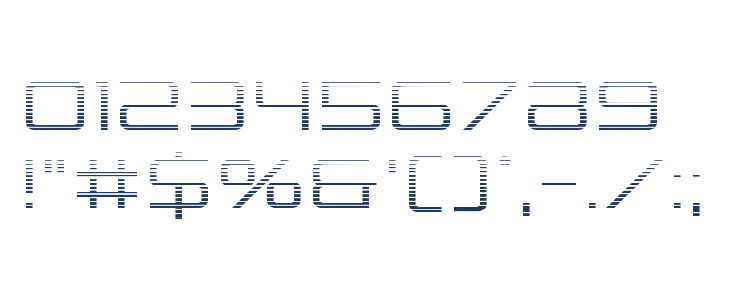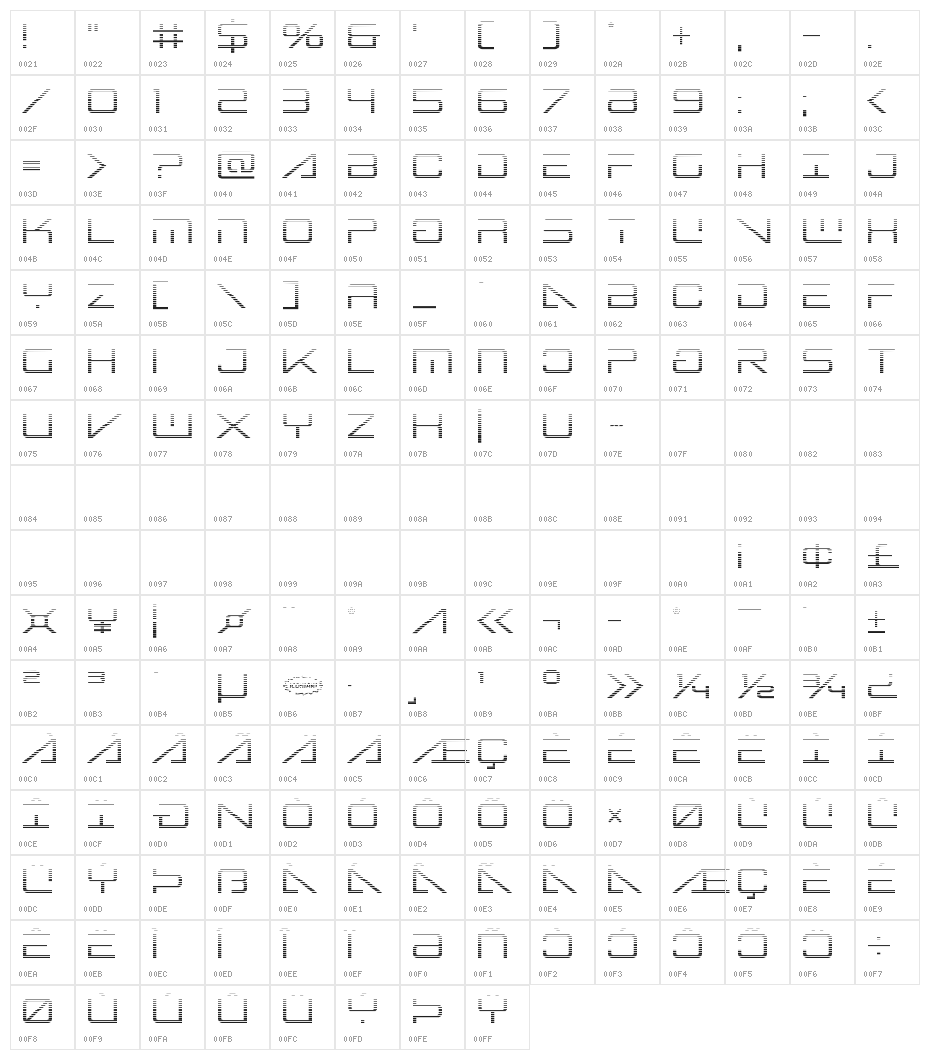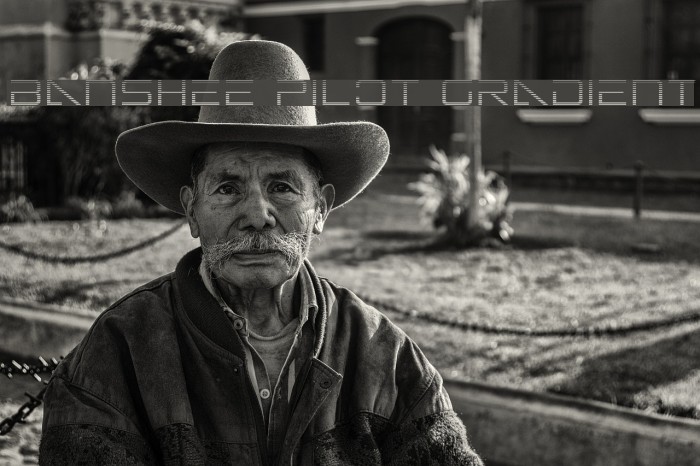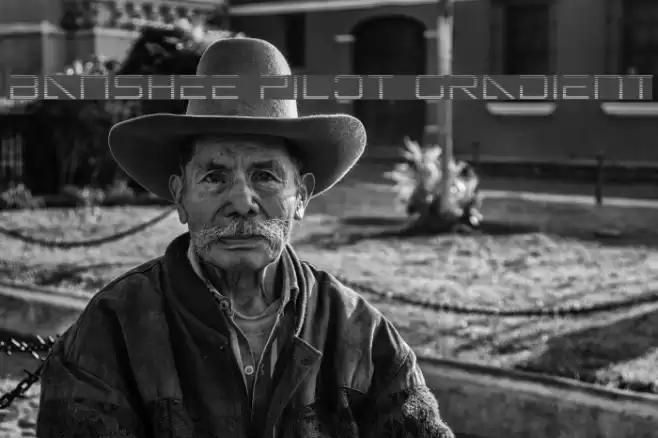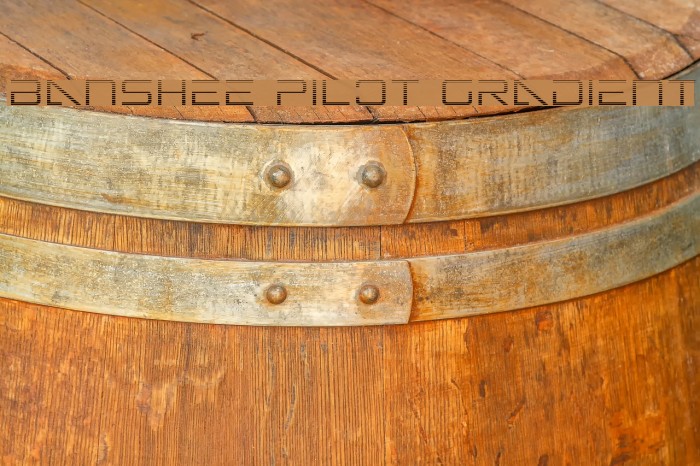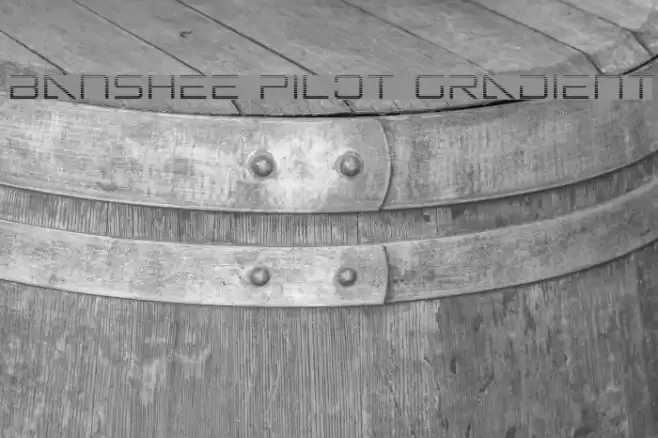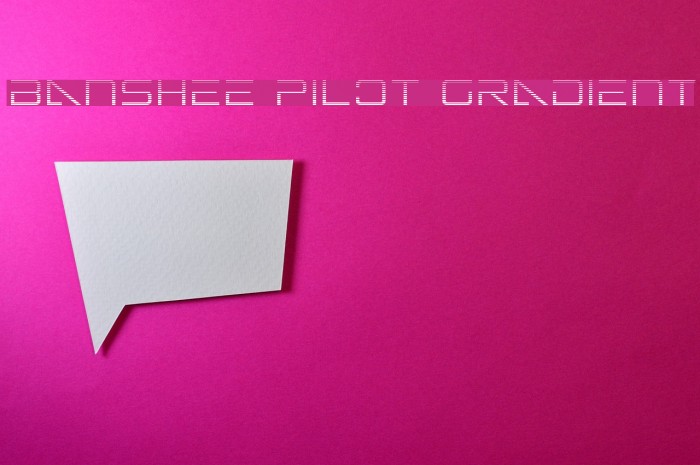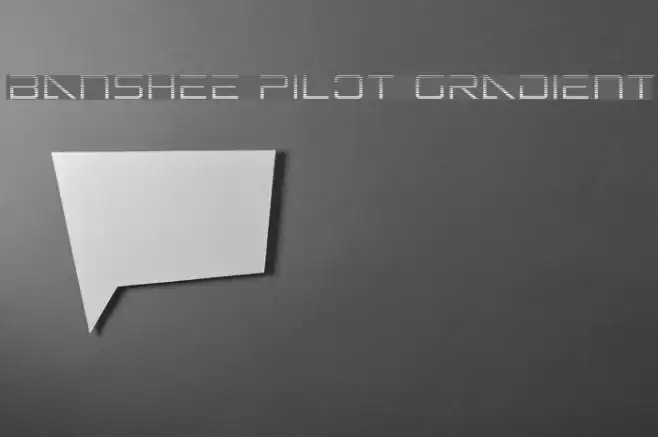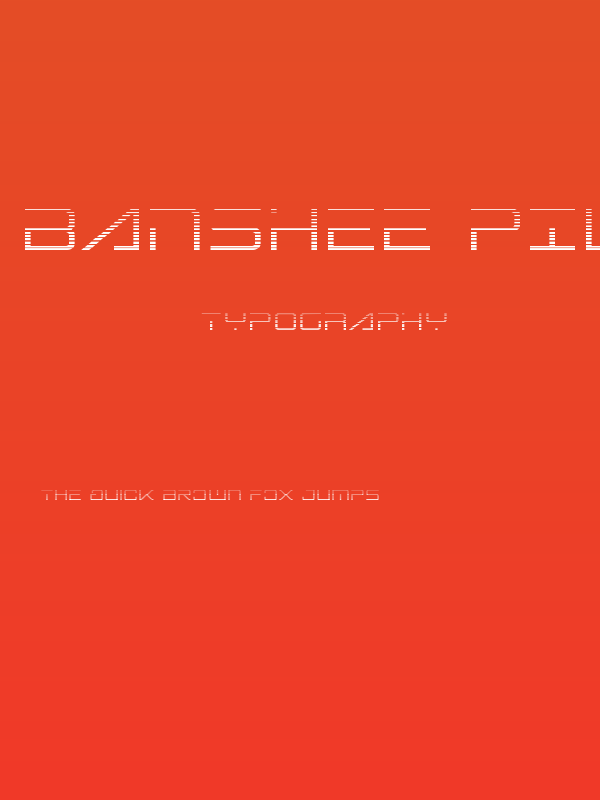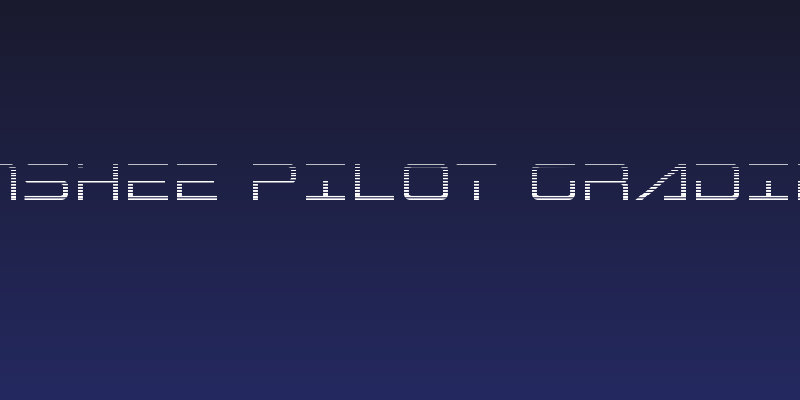
Banshee Pilot Gradient Font
Banshee Pilot Gradient Description
This font features a futuristic and digital aesthetic, characterized by its geometric and angular letterforms. Each character is composed of segmented lines that create a sense of movement and energy, reminiscent of digital displays or sci-fi interfaces. The uppercase and lowercase letters maintain a consistent style, with sharp edges and a uniform stroke width that enhances its modern appeal. The numerals and special characters follow the same design principles, ensuring a cohesive look across all glyphs. This font's unique style makes it stand out, ideal for projects that require a tech-savvy or avant-garde touch.
| Proposed Projects | Ideal for tech branding, sci-fi movie posters, video game interfaces, and digital art projects. |